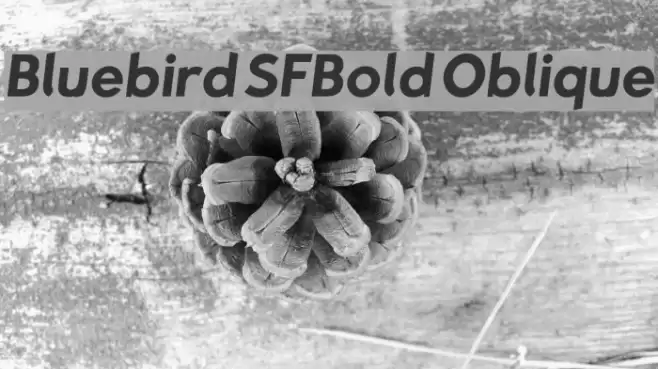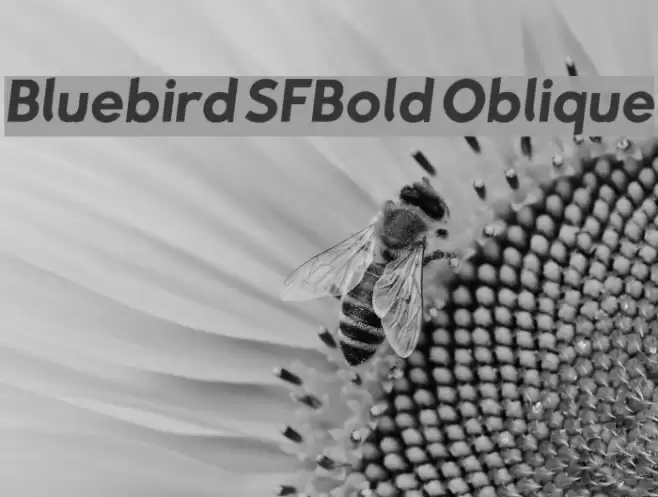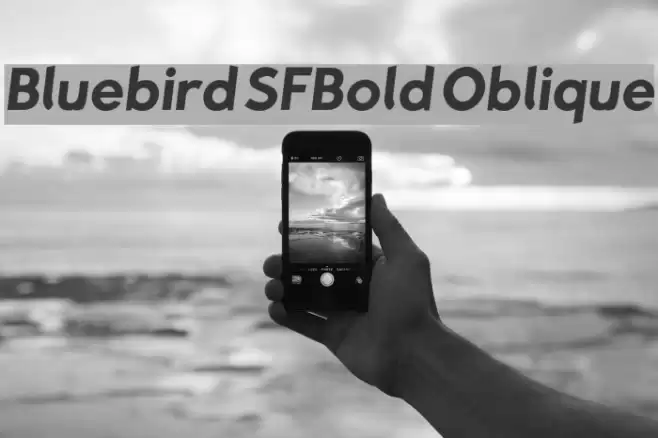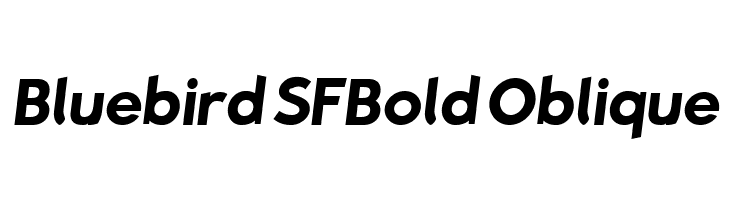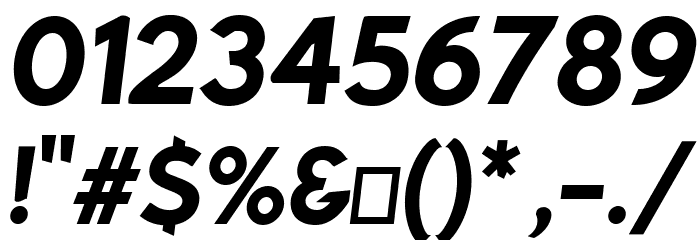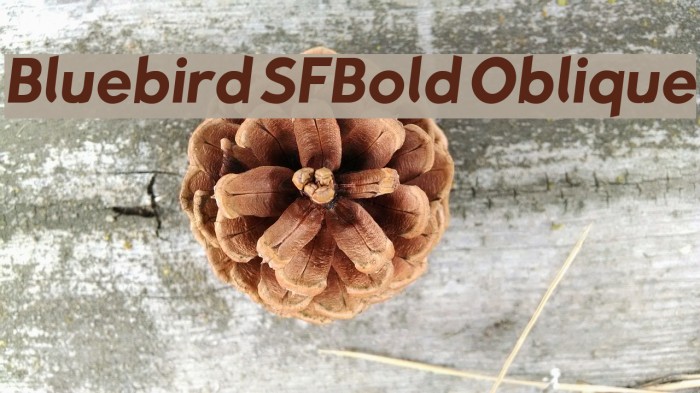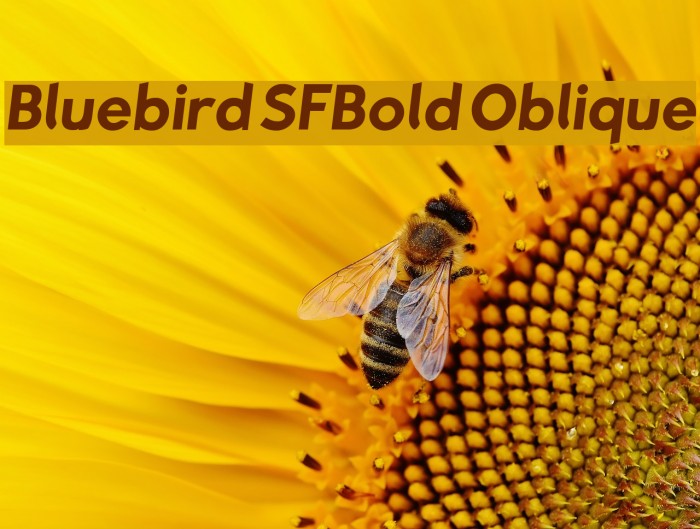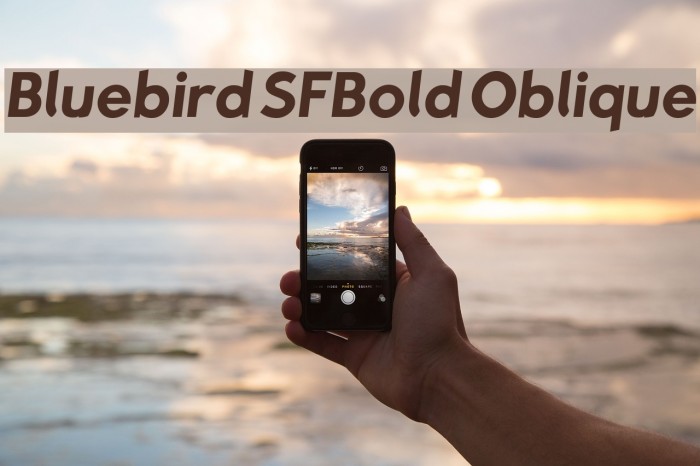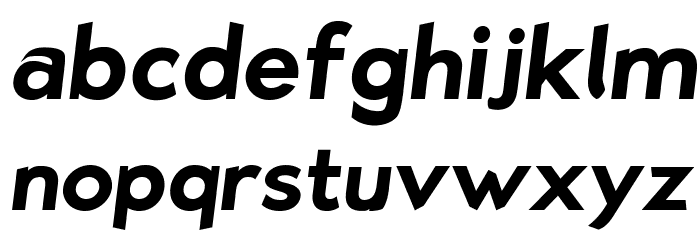
Bluebird SFBold Oblique
This font features a bold and oblique style, characterized by its strong and assertive appearance. The letters are slightly slanted, giving a dynamic and forward-moving impression. The strokes are thick and consistent, providing a sense of stability and confidence. The uppercase and lowercase letters maintain a uniform width, ensuring readability and balance. The numerals are clear and bold, matching the overall robust style of the alphabet. Special characters are well-defined, adding versatility to the font's use. The font's modern and sleek design makes it suitable for a variety of applications.
A bold, oblique font with a modern and assertive style.
- Proposed Projects: Ideal for branding, advertising, headlines, and digital media where a strong, modern presence is desired.
- Use Case: Headlines, Logos, Advertising